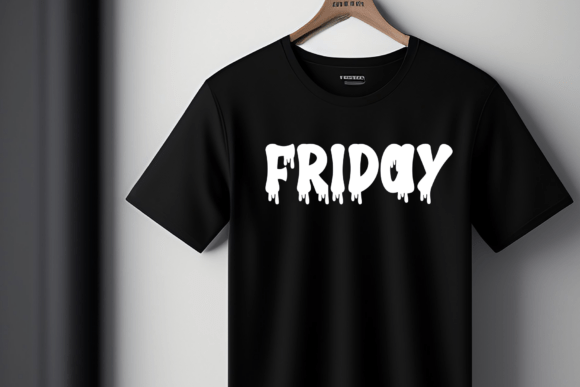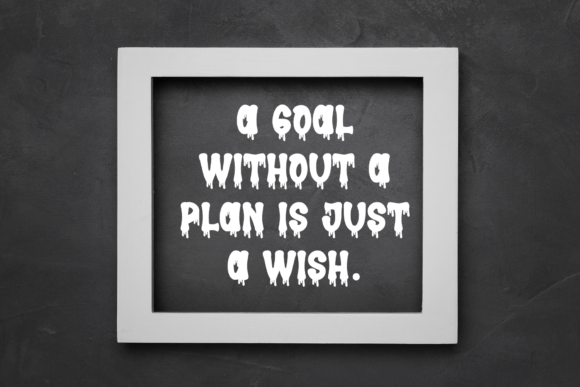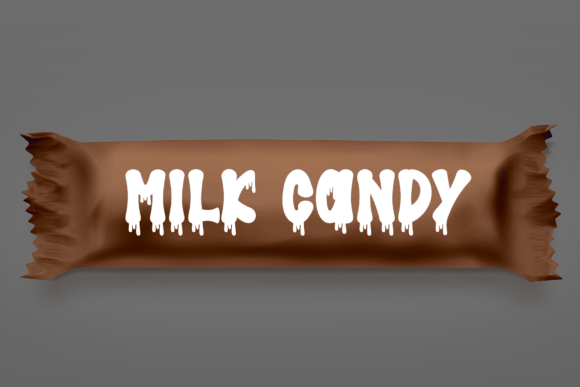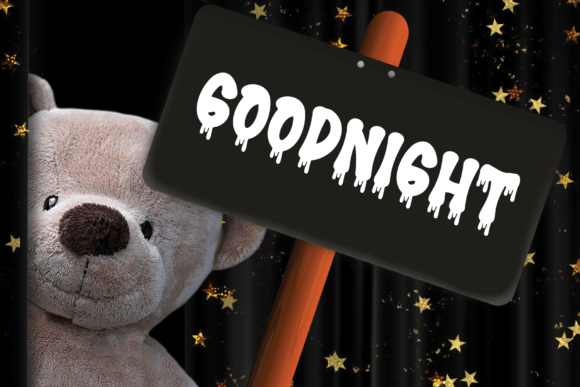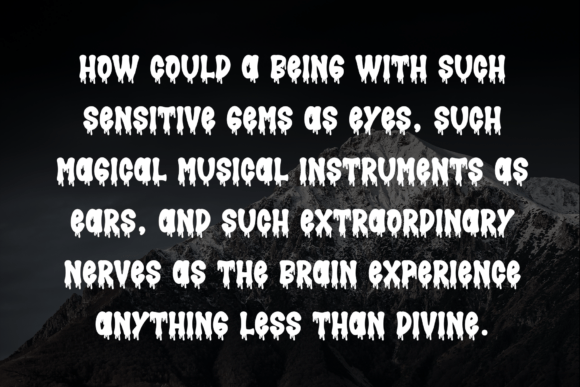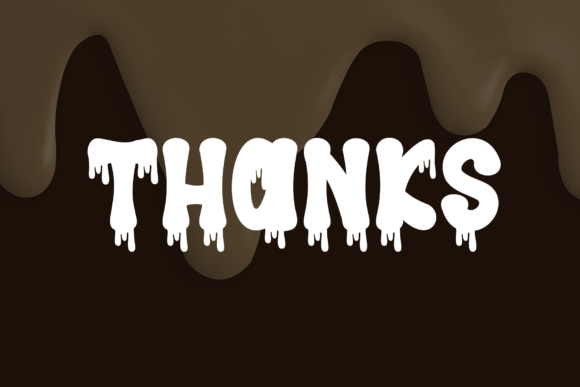
Introducing the Choco Melting Font: A Deliciously Modern Typeface
Are you looking for a font that can add a touch of whimsy and fun to your designs? Look no further than the Choco Melting font, a deliciously modern typeface that brings a tactile, sensory element to your creative projects. Designed to resemble thick, flowing chocolate, each character in this font features gooey, melting drips that add an instant “yummy” factor to your work.
The Perfect Font for Sweet Treats and Desserts
The Choco Melting font is an absolute must-have for bakeries, dessert shops, and any branding project related to sweets and treats. Whether you’re designing a logo, a chocolate box, a dessert menu, or a social media promotion for a cake shop, this font is sure to create an irresistible visual appeal. The bold, rounded forms of the Choco Melting typeface ensure that it remains legible even with the intricate dripping details, making it highly effective for headlines and posters.
Design Possibilities are Endless
One of the best things about the Choco Melting font is its versatility. You can pair it with a rich brown and cream color palette to lean into the chocolate theme, or use vibrant colors for a “slime” or “paint” effect in creative art projects. The possibilities are endless, and the Choco Melting font is sure to inspire your creativity. Imagine using it to design:
- A decadent chocolate cake advertisement, complete with a mouth-watering image and a call-to-action that features the Choco Melting font.
- A dessert menu for a trendy bakery, with the Choco Melting font adding a playful touch to the list of sweet treats.
- A social media promotion for a candy store, featuring the Choco Melting font in a bold, eye-catching design.
Key Features of the Choco Melting Font
So what makes the Choco Melting font so special? Here are a few key features that set it apart:
- Tactile, sensory design: The Choco Melting font is designed to look like thick, flowing chocolate, complete with gooey, melting drips.
- Bold, rounded forms: The font’s bold, rounded forms ensure that it remains legible even with the intricate dripping details.
- Versatile: The Choco Melting font can be paired with a variety of color palettes and used in a range of creative projects.
Tips for Using the Choco Melting Font
Here are a few tips for getting the most out of the Choco Melting font:
- Experiment with color: Don’t be afraid to try out different color palettes with the Choco Melting font. A rich brown and cream palette can create a warm, inviting look, while vibrant colors can add a fun and playful touch.
- Use it for headlines and posters: The Choco Melting font is highly effective for headlines and posters, thanks to its bold, rounded forms and intricate dripping details.
- Pair it with images: The Choco Melting font looks great when paired with images of sweet treats, desserts, and other food-related items.